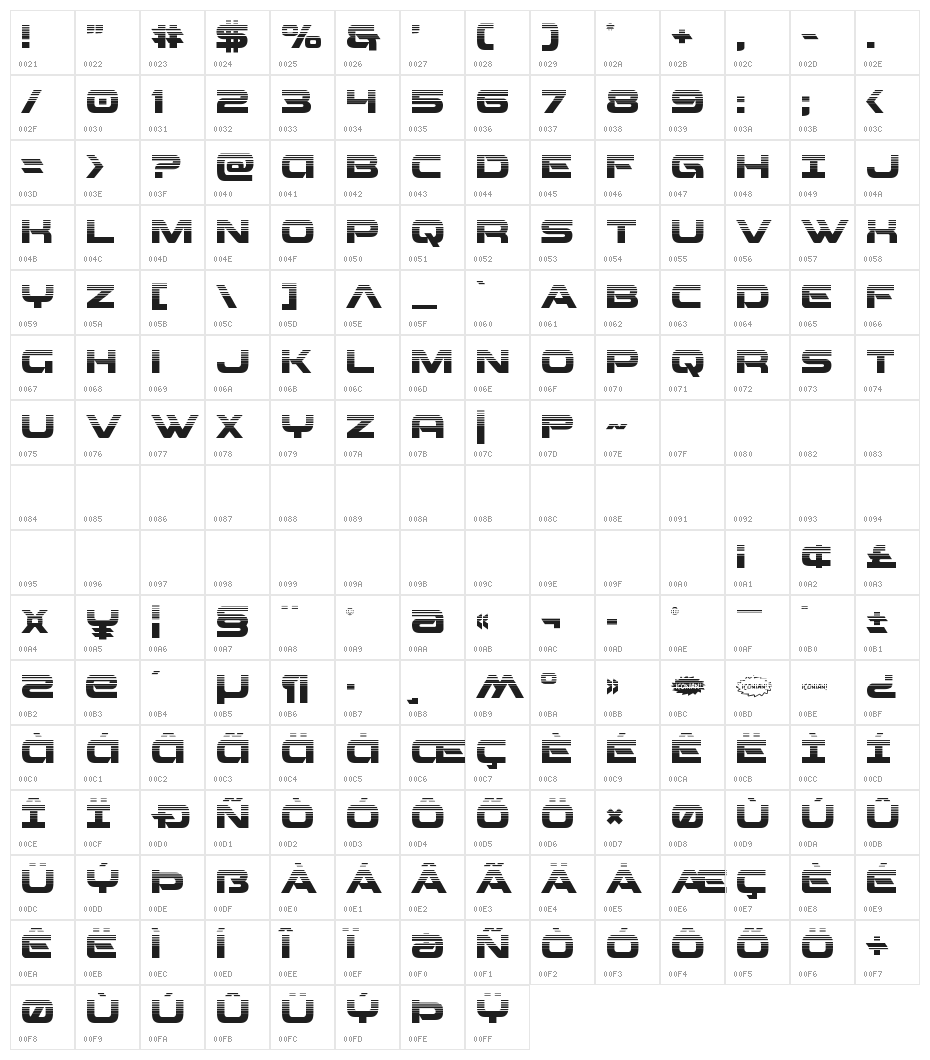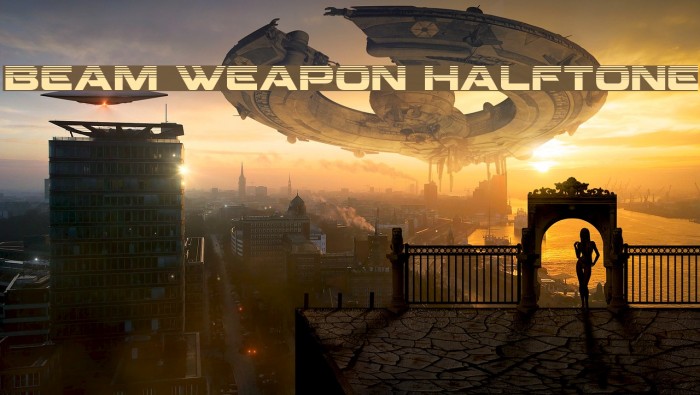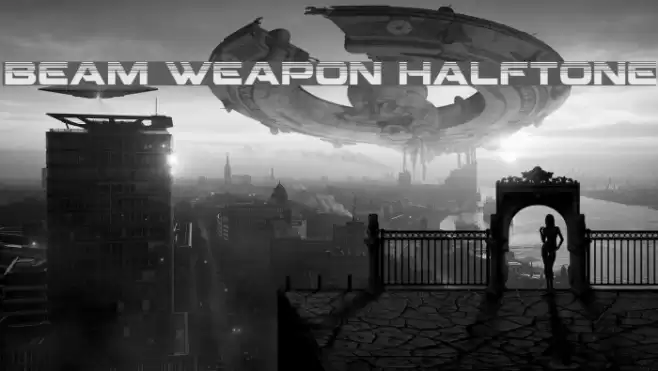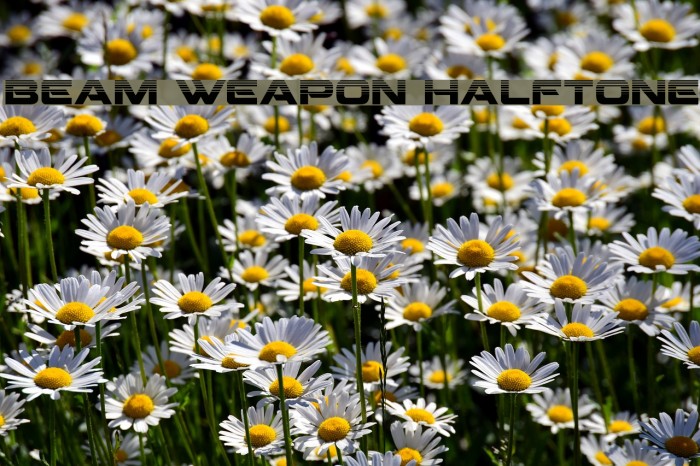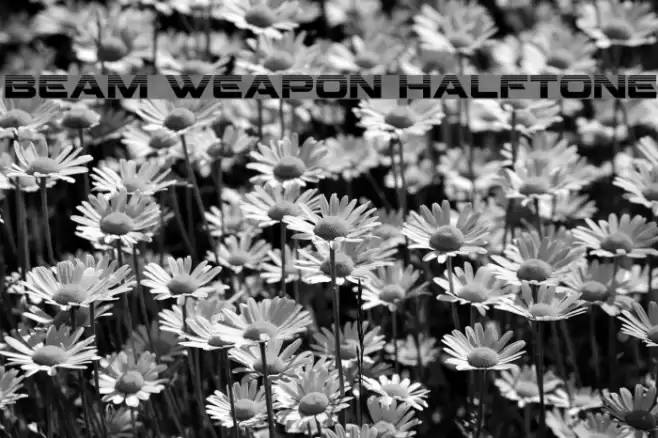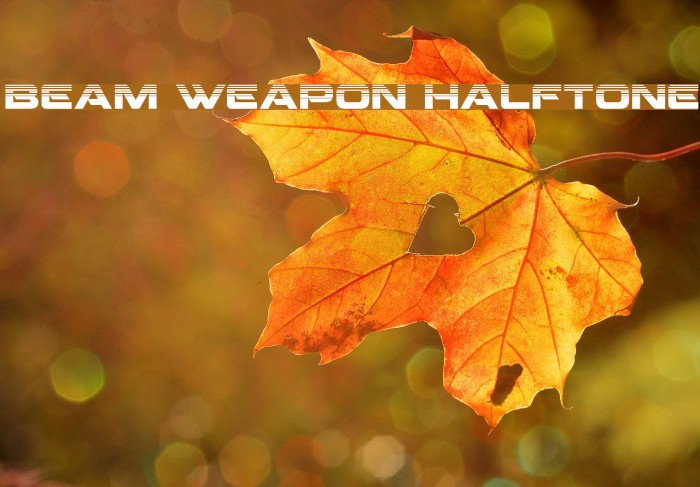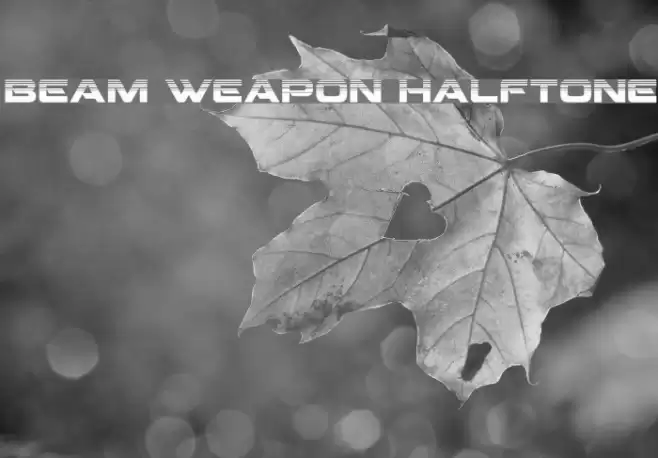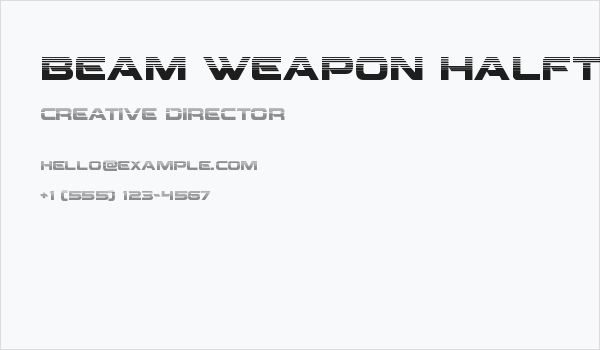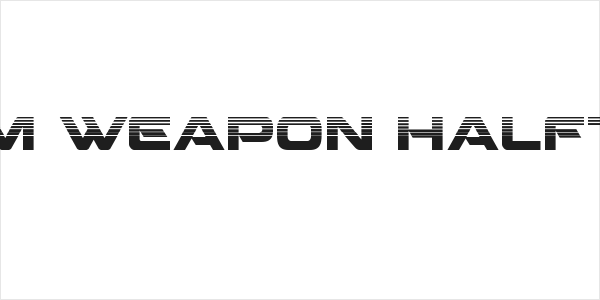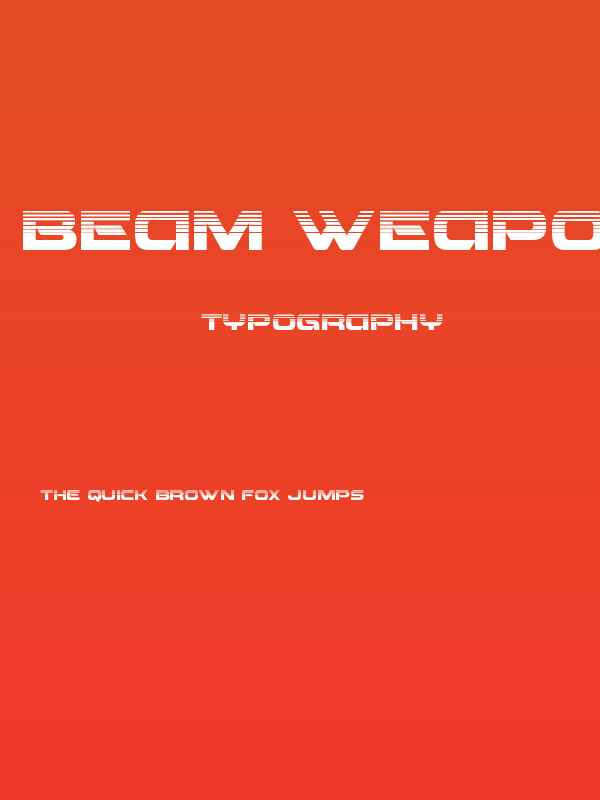
Beam Weapon Halftone Font
Beam Weapon Halftone Description
This font features a bold, futuristic design with a halftone effect that gives it a dynamic, high-tech appearance. The characters are constructed with horizontal lines that create a sense of movement and energy. The uppercase and lowercase letters maintain a consistent style, with sharp angles and geometric shapes. Numbers and special characters are equally bold and stylized, making them stand out. This font is ideal for projects that require a modern, digital aesthetic, such as technology branding, sci-fi themes, or video game graphics.
| Overall Style | Futuristic, Digital |
| Use Case | Headlines, Logos, Digital media |
| Proposed Projects | Ideal for technology branding, sci-fi themes, video game graphics, and digital media. |